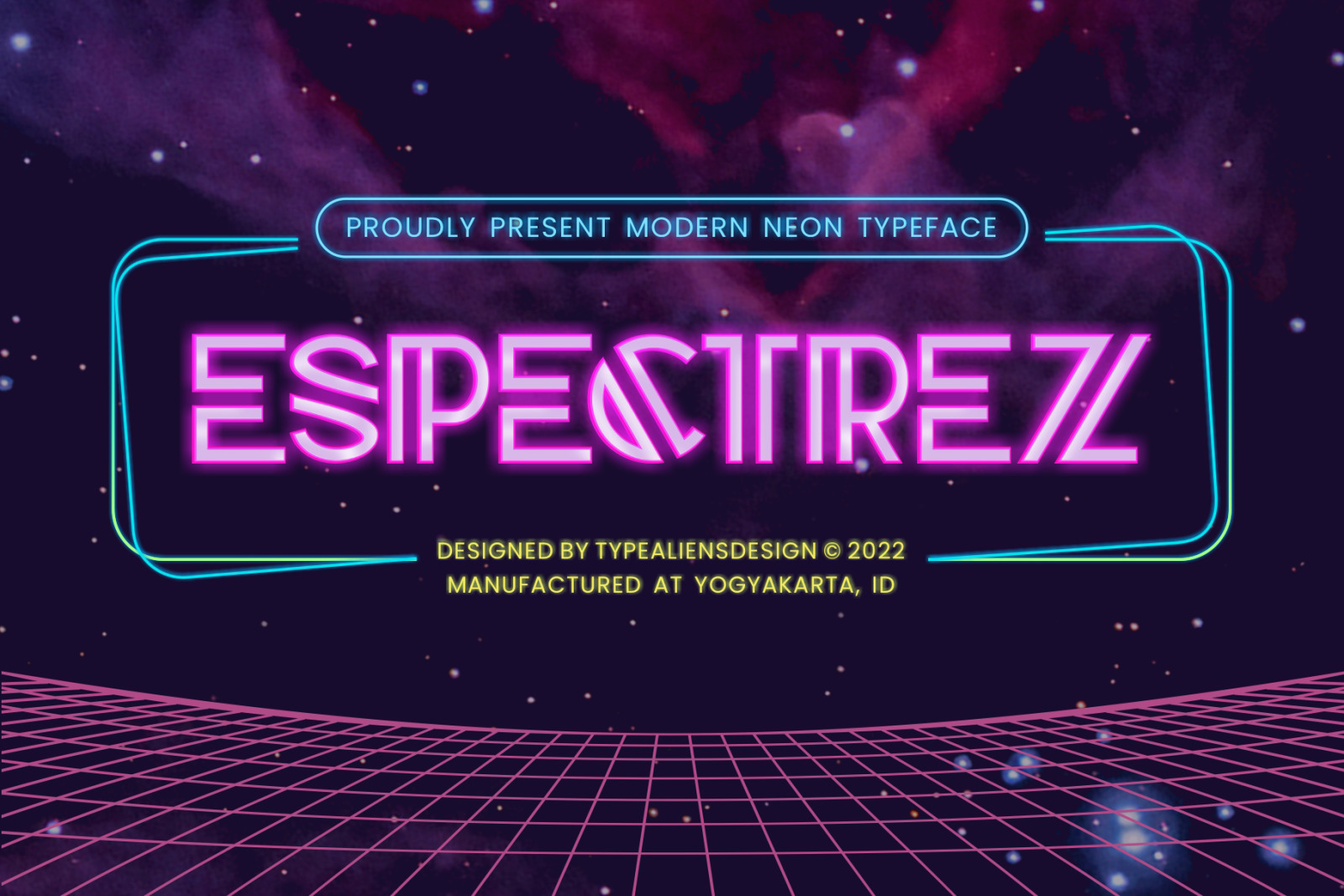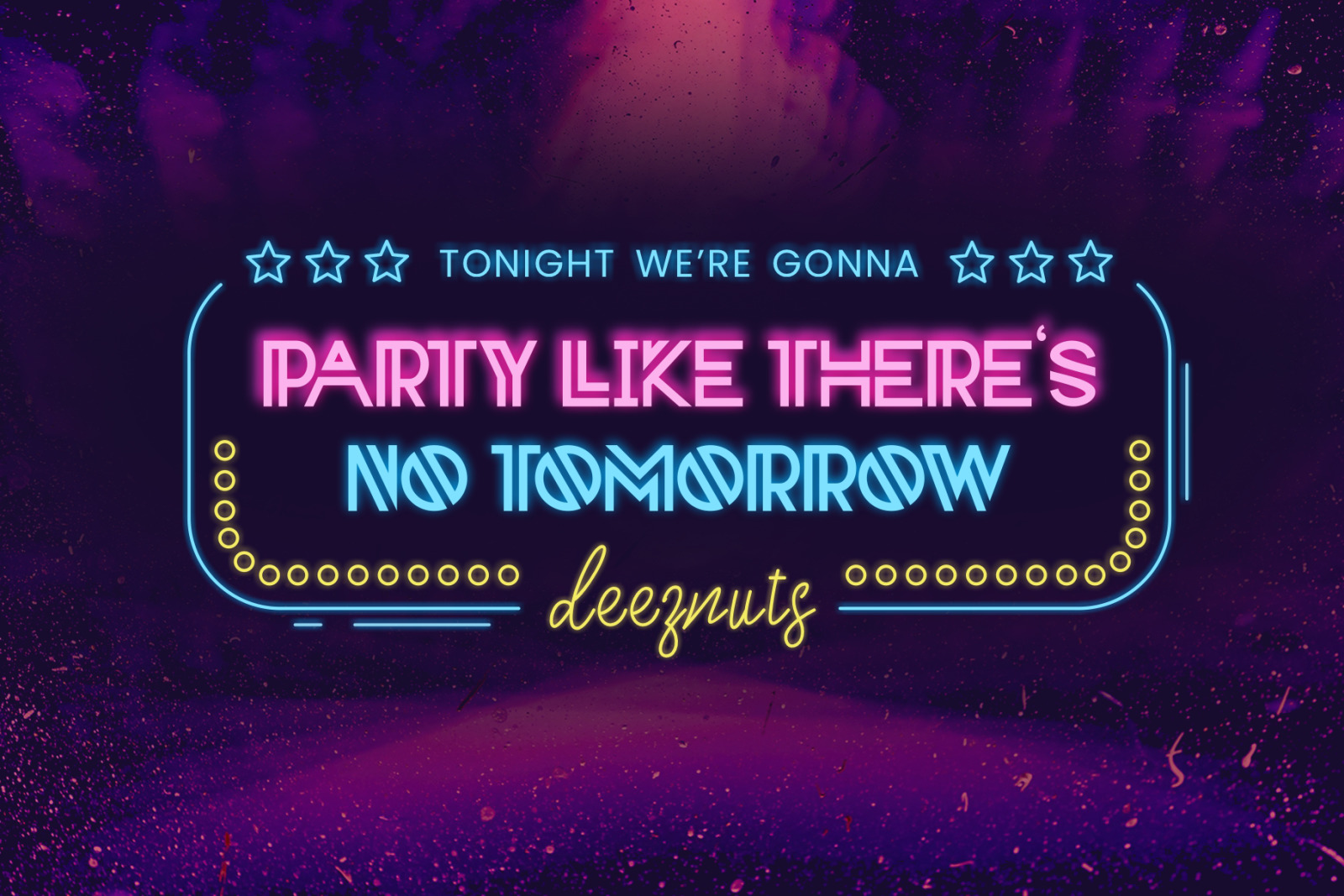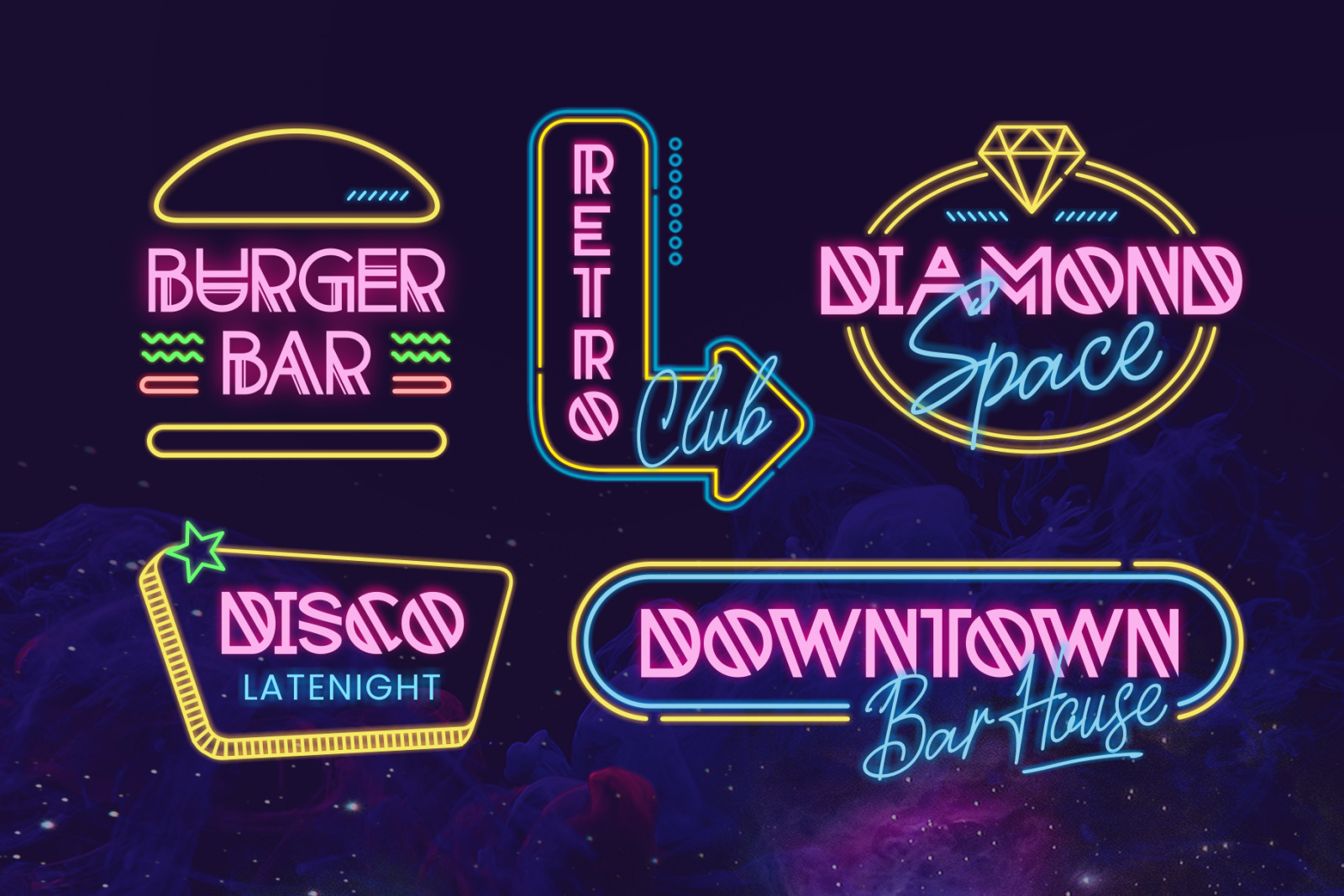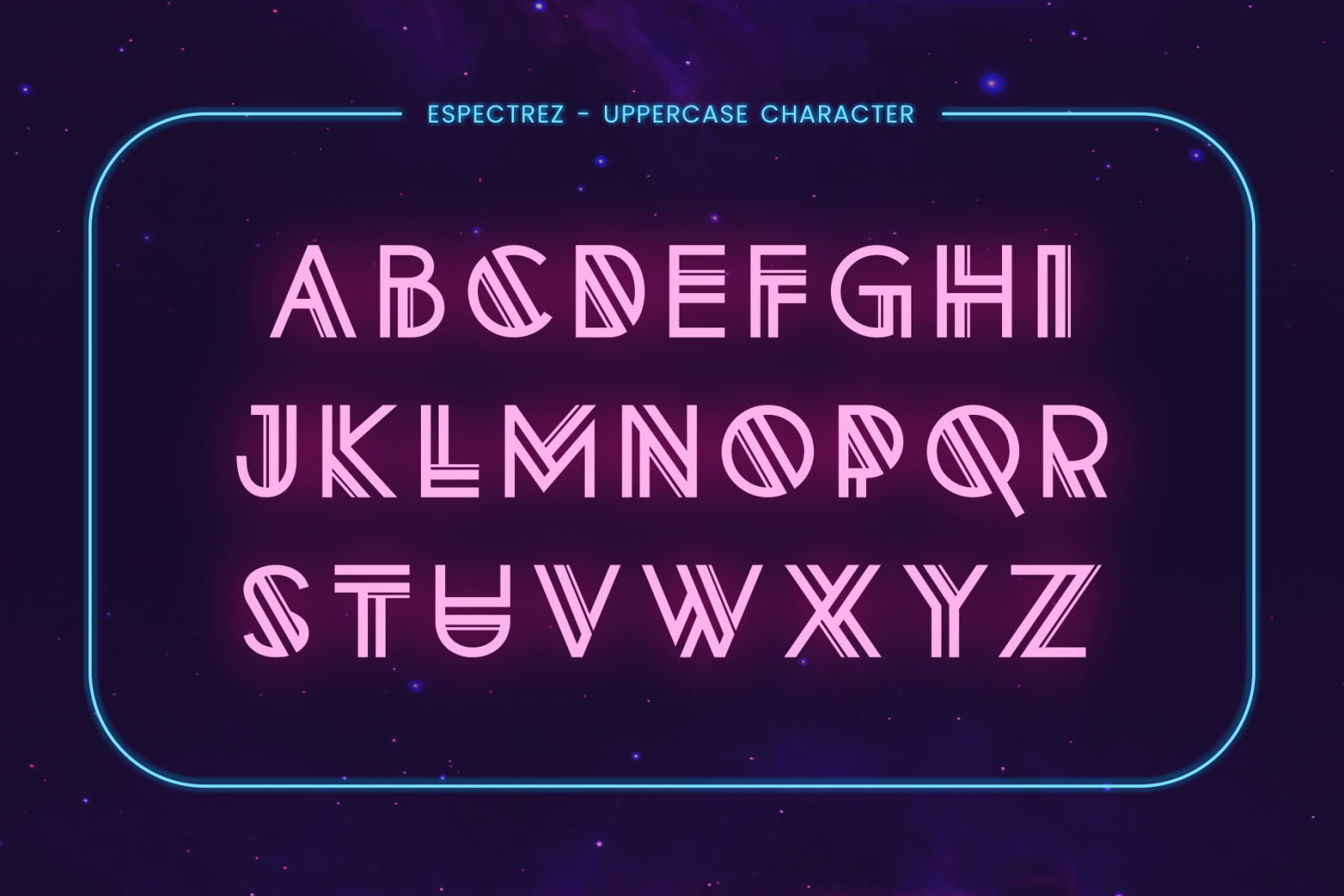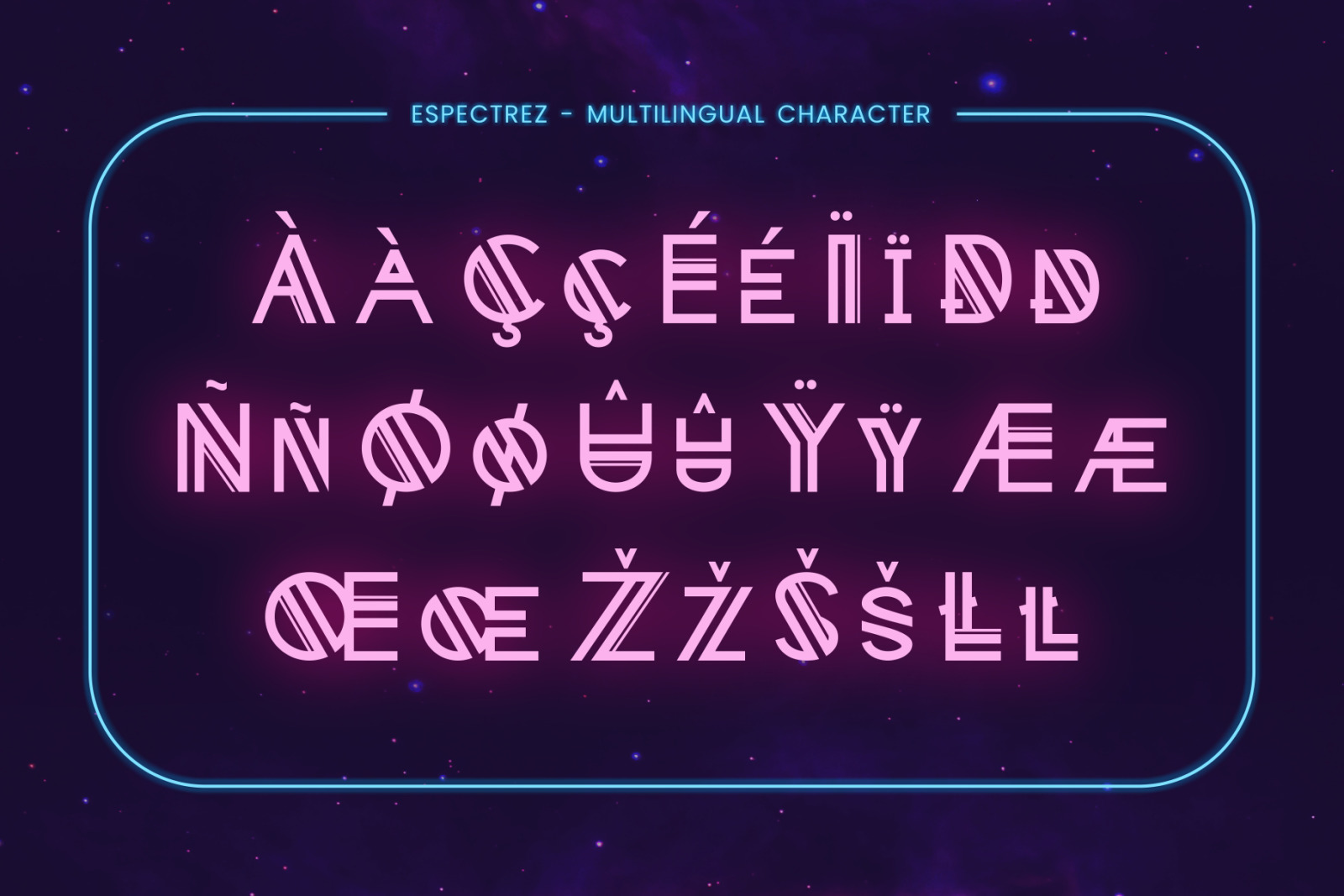
Espectrez Font
ESPECTREZ is a unique font inspired by neon signage. The basic is a sans serif allcaps font which consists of outlines and modified to be adjusted like neon, the nature of this font includes a stiff and modern font, it will be very good for modern designs and themed galaxy or futuristic.